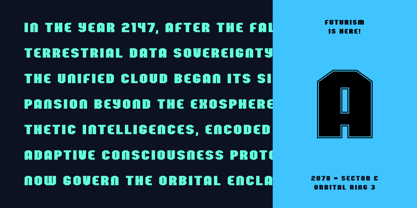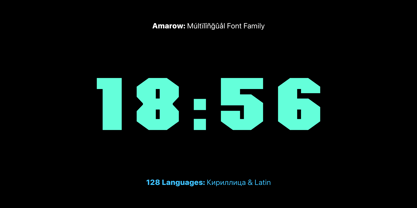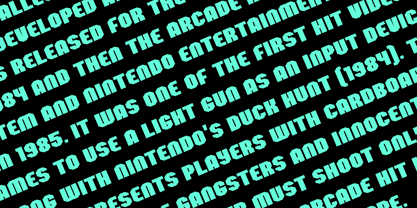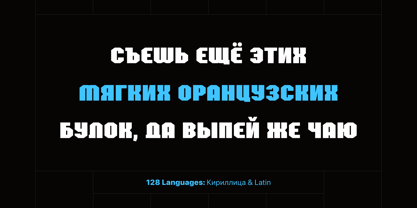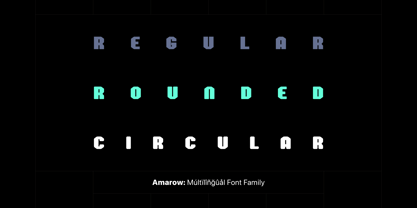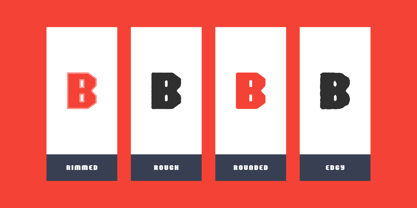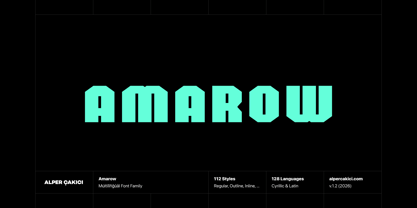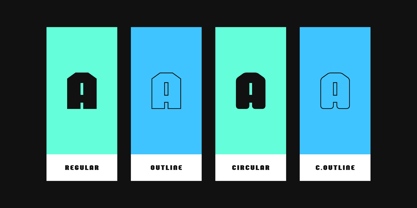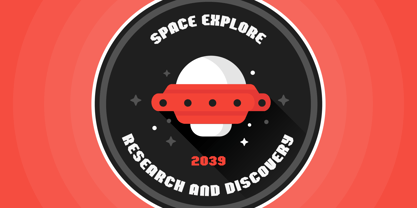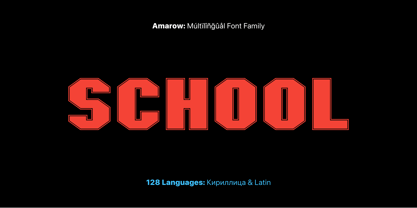
Amarow
The Amarow Font Family was designed by Alper Çakıcı and published by AlperCakici. Amarow contains 112 styles and family package options. More about this family
Amarow is a bold, uncompromising display typeface built on strong geometric foundations and sharp-cut forms. Its blocky construction and confident presence make it ideal for impactful headlines, branding, posters, and logotypes that demand attention. The design blends industrial toughness with subtle stylistic versatility, allowing it to adapt from aggressive layouts to more refined compositions. With an extensive family of 112 styles, Amarow offers remarkable flexibility. From clean Regular and Italic to textured variants like Brush, Chalk, Grainy, Rusty, and Sketchy, it gives designers a complete toolkit for expressive typography. The inclusion of Circular and Rounded subfamilies softens the rigid structure when needed, while Inline, Outline, and Rimmed styles add dimensional depth and decorative flair. Supporting both Latin and Cyrillic scripts, Amarow is crafted for multilingual use without compromising consistency or visual strength. Whether you're building a bold brand identity or experimenting with layered typographic effects, Amarow delivers power, personality, and precision in every glyph.